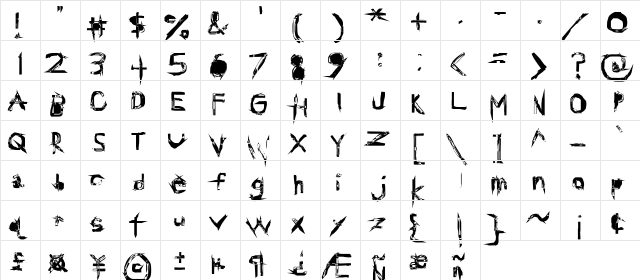
Frustration Regular Font Preview
Frustration Regular
Frustration Regular Font Details
Design Context for Frustration Typeface
Frustration is a composed and adaptable typeface that performs quietly and consistently across a wide range of design contexts.
Pro Tip: Use Frustration in both headline and body roles to test its range before committing to a single application.